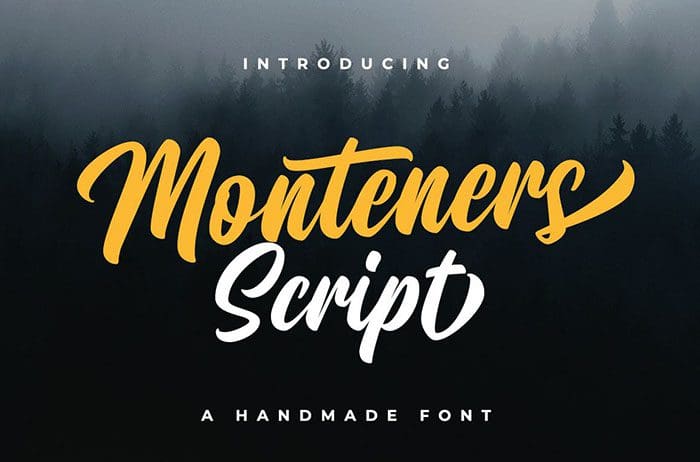
Free Monteners Script Font is a beautiful and elegant script font. It is suitable for any design project such as logo, branding, poster, header, card, custom mug, pillow, t-shirts, and any project design purpose. This font is available only for personal use. Created this font by Teguh Subiyantoro. You can also search more freeĀ Script Fonts. Thanks!
Designed By : Suby Studio